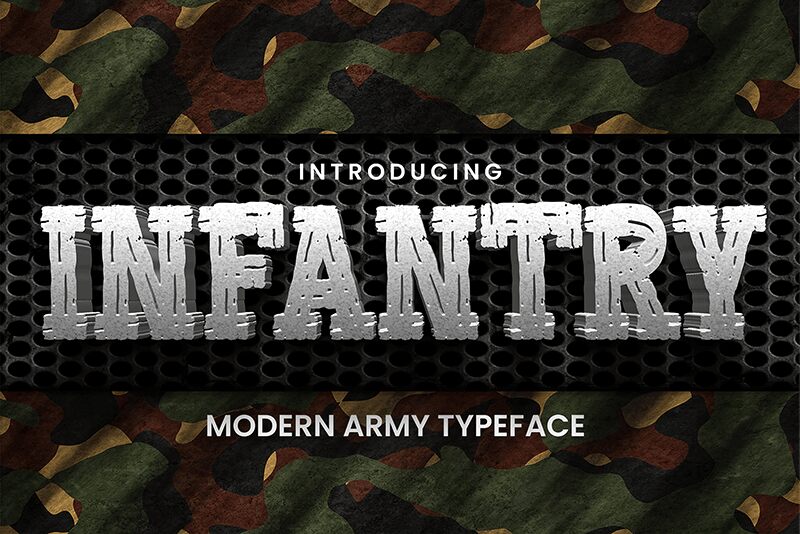
Infantry, crafted by Gassstype, stands tall and authoritative like a battalion on the battlefield. As a modern army typeface, it salutes the classic vintage military stencil design with its bold, western-style serif characteristics. This display font is more than just letters on a page; it's a declaration of strength and precision.
The robust weight of Infantry ensures that your creative projects command attention. Its military-inspired essence makes it perfect for an array of applications-from army posters to web backgrounds, from surface textures to stationery. Whether you're creating invitations with a touch of valor, gift wraps that exude confidence, or fabric prints that carry the spirit of adventure, Infantry marches off the screen and into the tangible world.
Its natural look belies its disciplined form; Infantry is versatile enough for scrapbooking aficionados and package designers alike. Let this typeface be your ally in crafting visuals that stand out with authority and character.